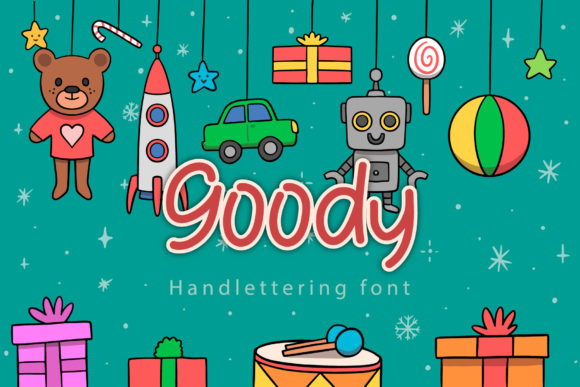
Introducing Goody Font: The Sweet and Friendly Handwritten Font for Your Creative Projects
Are you a designer, crafter, or DIY enthusiast looking for a font that can add a personal touch to your creative projects? Look no further than Goody Font, a sweet and friendly handwritten font that’s perfect for a wide range of designs. With its natural and unique style, Goody Font is incredibly versatile and can be used for everything from greeting cards and invitations to branding and advertising materials.
The Characteristics of Goody Font
Goody Font is a handwritten font that’s designed to look like it was written with a pen or pencil. Its natural, imperfect style gives it a charming and approachable feel that’s perfect for designs that need a personal touch. The font features:
- Unique and irregular letterforms: Each letter in Goody Font has its own unique character, making it perfect for designs that need a personal touch.
- Natural and handwritten feel: The font has a natural, handwritten feel that’s perfect for designs that need to look friendly and approachable.
- High legibility: Despite its handwritten style, Goody Font is highly legible, making it perfect for designs that need to communicate a message clearly.
The Benefits of Using Goody Font
So why choose Goody Font for your creative projects? Here are just a few benefits of using this versatile font:
- Versatility: Goody Font can be used for a wide range of designs, from greeting cards and invitations to branding and advertising materials.
- Emotional connection: The font’s natural and handwritten style can help create an emotional connection with your audience, making your designs more relatable and engaging.
How to Use Goody Font in Your Designs
Goody Font is easy to use and can be incorporated into your designs in a variety of ways. Here are a few ideas to get you started:
- Greeting cards and invitations: Use Goody Font to create personalized greeting cards and invitations that will make your recipients feel special.
- Branding and advertising: Use Goody Font to add a personal touch to your branding and advertising materials, such as business cards, brochures, and flyers.
- Digital designs: Use Goody Font in your digital designs, such as social media graphics, blog posts, and email newsletters.
Tips and Tricks for Getting the Most Out of Goody Font
Here are a few tips and tricks for getting the most out of Goody Font:
- Experiment with different colors and textures: Goody Font looks great in a variety of colors and textures, so don’t be afraid to experiment and find the combination that works best for your design.
- Use it with other fonts: Goody Font can be paired with other fonts to create a unique and interesting look.
- Make it your own: Don’t be afraid to add your own personal touch to Goody Font by adjusting the letterforms or adding your own custom elements.